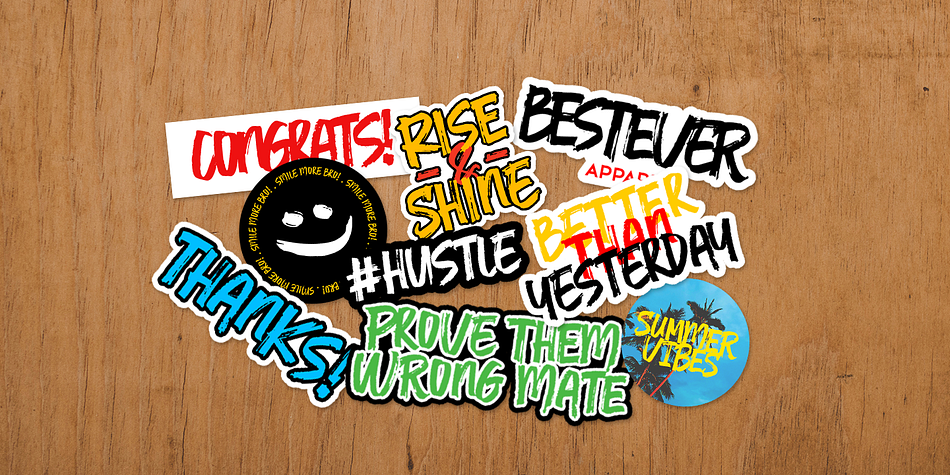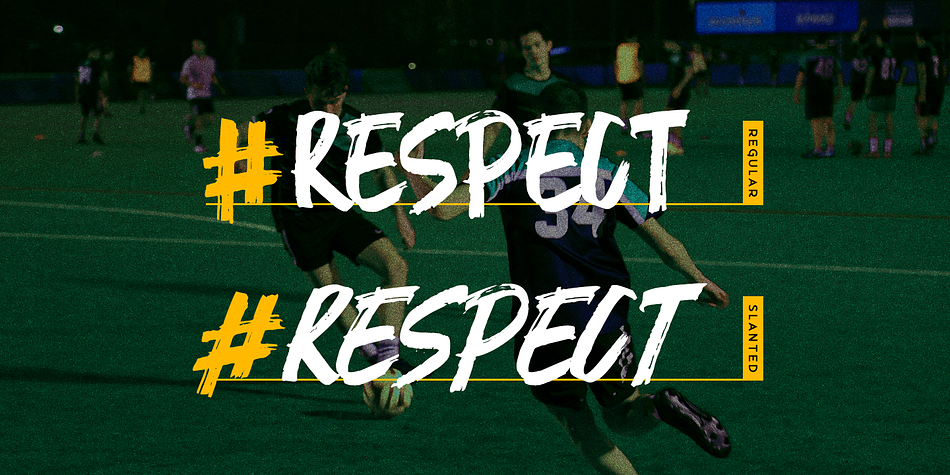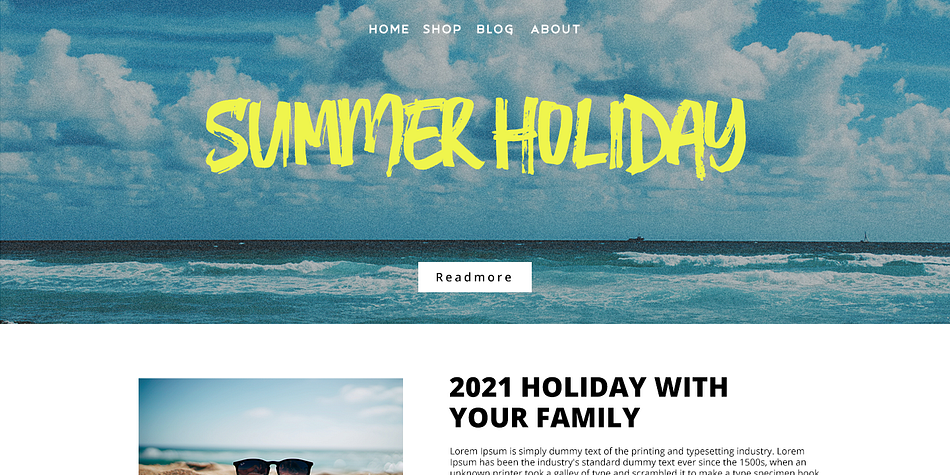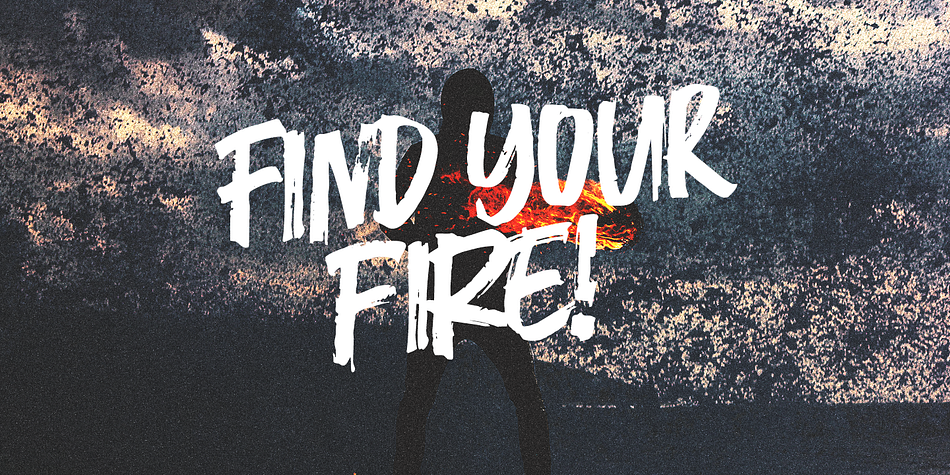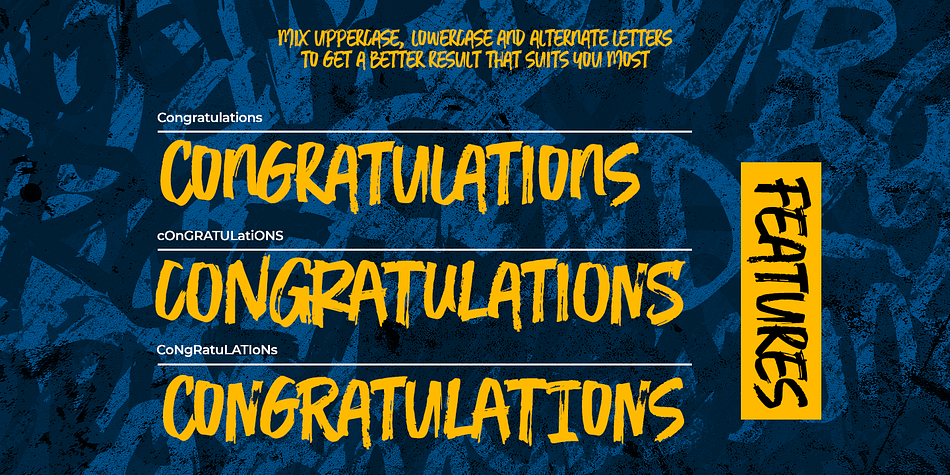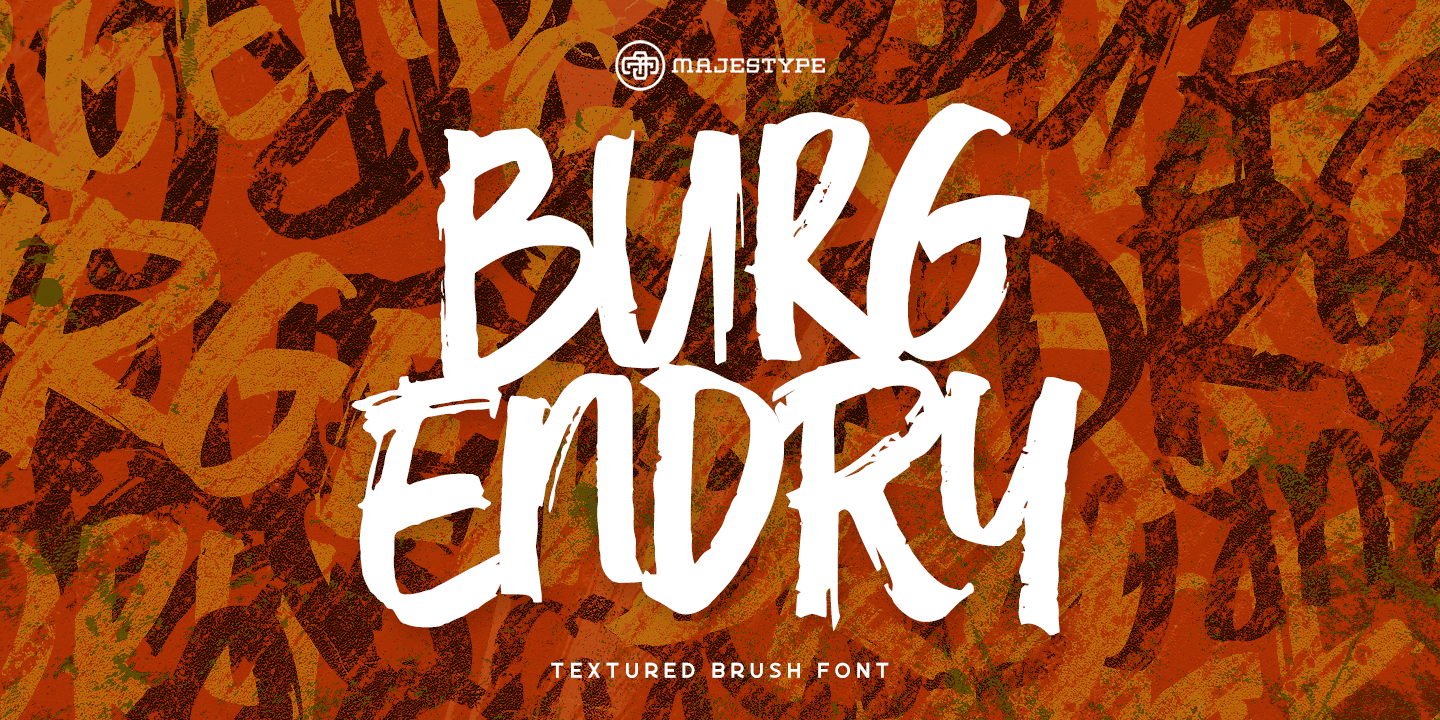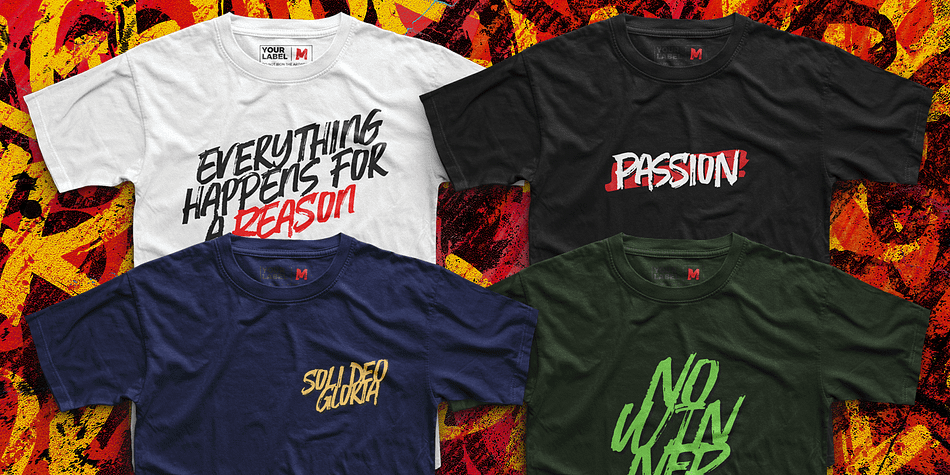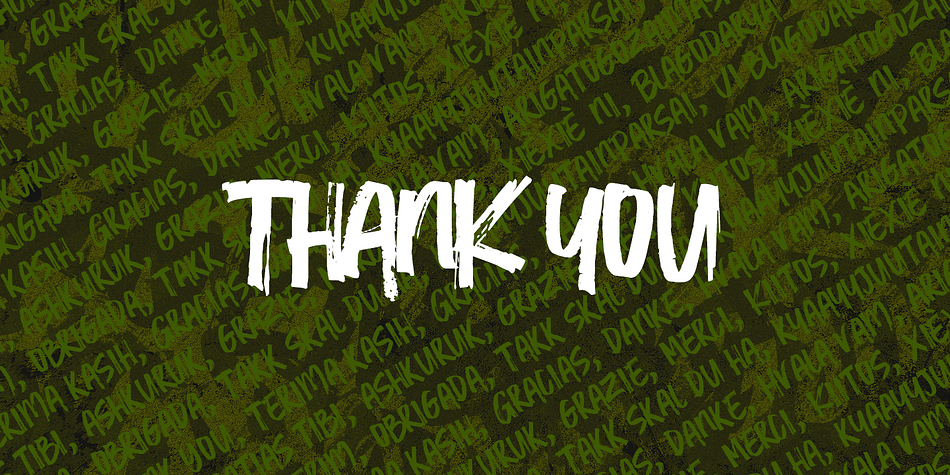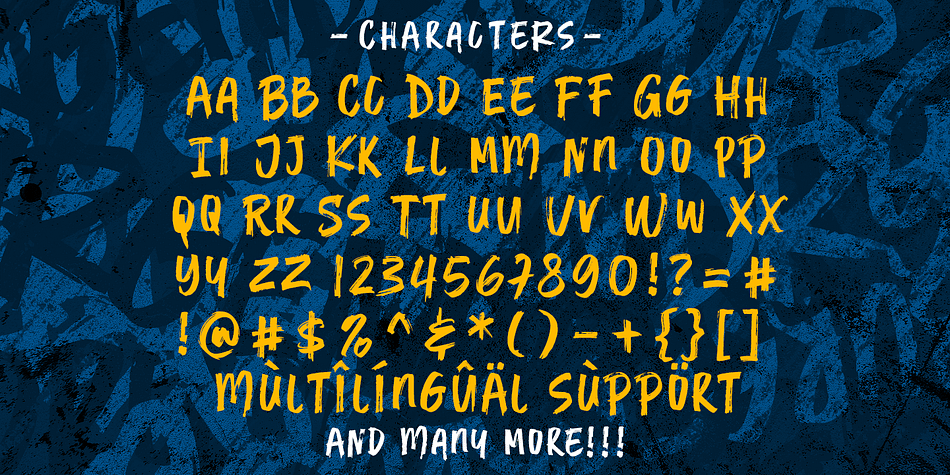
Burgendry
Designed by Dexsar Anugrah, Burgendry is a brush display and grunge font family. This typeface has two styles and was published by Majestype.
Burgendry is a bold, high-detail brush font. It comes with regular and slanted version, which aim to give a different feel.
Equipped with an open-type feature and more than 300 glyphs, which are very useful for today’s design needs. This font is perfect for designing t-shirts, stickers, headlines, sports, quotes, logotypes, brandings, and posters.